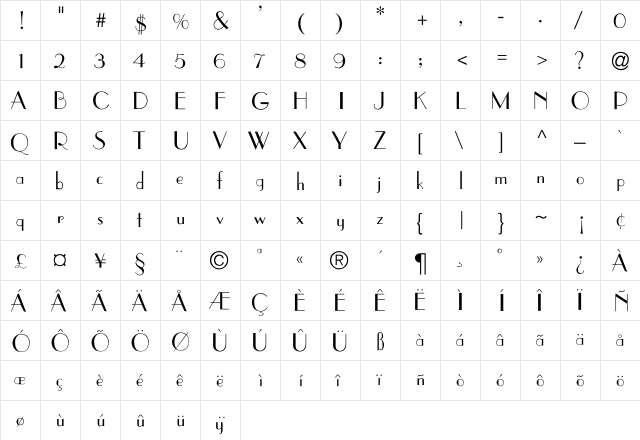
Parisian-Normal Regular Font Preview
Parisian-Normal Regular
Design Context for Parisian-Normal Typeface
Parisian-Normal is a composed and adaptable typeface that performs quietly and consistently across a wide range of design contexts.
Pro Tip: Use Parisian-Normal in both headline and body roles to test its range before committing to a single application.